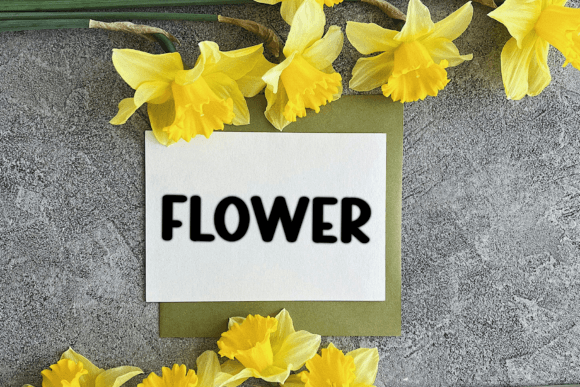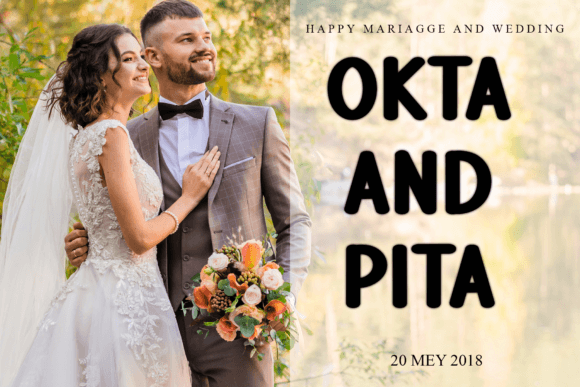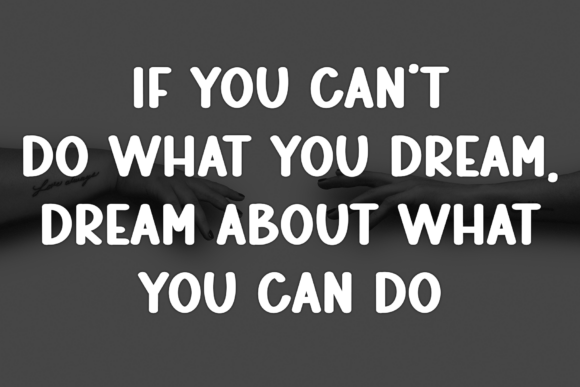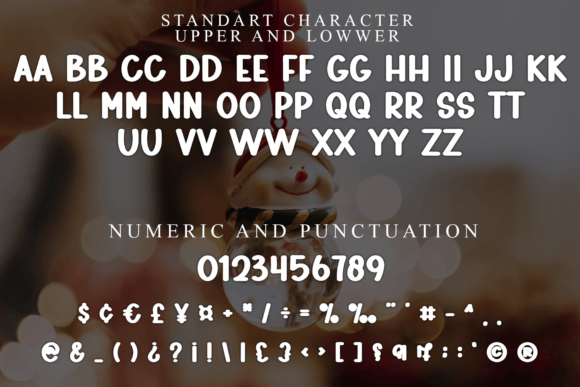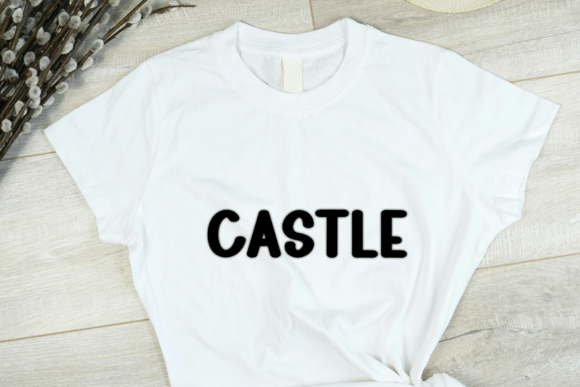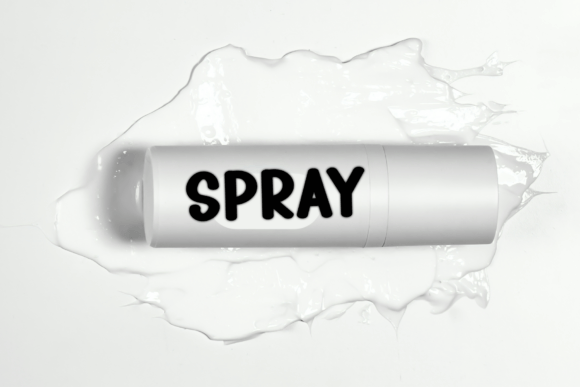
Introducing the Bold Series Font: Elevate Your Designs with Timeless Elegance
In the world of typography, a font can make or break a design. It’s the foundation upon which creativity is built, and the right choice can elevate a project from ordinary to extraordinary. For designers and crafters seeking a stylish, beautiful, and elegant font that embodies a contemporary atmosphere with impeccable form, the Bold Series Font is an exceptional choice. Inspired by timeless classic calligraphy, this font brings balance, variety, and a touch of sophistication to any project.
The Inspiration Behind Bold Series
The Bold Series Font draws its inspiration from the elegance of classic calligraphy, a style that has stood the test of time. Calligraphy, with its fluid lines and dynamic connections, has always been a symbol of sophistication and luxury. By incorporating these elements into a modern font, Bold Series achieves a perfect blend of traditional beauty and contemporary flair. This fusion makes it versatile enough to be used in a wide range of design projects, from branding and advertising to packaging and digital media.
Key Features of Bold Series Font
• Contemporary Atmosphere and Impeccable Form: The Bold Series Font is crafted to provide a clean and modern look that fits well with current design trends while maintaining a classic touch.
• Balanced and Varied: The font is designed with balance and variety in mind, offering multiple weights and styles that can be used to create visual hierarchy and add depth to designs.
• PUA Encoded: Being PUA (Private Use Area) encoded means that the Bold Series Font offers easy access to a wide range of glyphs and ligatures. This feature allows designers to explore creative typography without the complexity of character mapping.
• Elegant and Stylish: With its roots in classic calligraphy, this font exudes elegance and style, making it suitable for projects that require a touch of sophistication.
Applications of Bold Series Font
The versatility of the Bold Series Font makes it an excellent choice for various design applications. Here are a few ways designers and crafters can utilize this beautiful font:
• Branding and Logo Design: Create memorable and impactful brand identities with the elegant and modern appeal of Bold Series.
• Advertising and Marketing Materials: Use the font in brochures, flyers, and digital ads to add a touch of sophistication and draw attention to your message.
• Packaging Design: Elevate product packaging with a stylish and contemporary look that stands out on shelves.
• Digital Media: Apply the Bold Series Font in website design, social media graphics, and video content to create a cohesive and professional visual identity.
Why Choose Bold Series Font?
Choosing the right font for a project can be overwhelming, given the numerous options available. However, the Bold Series Font stands out for several reasons:
• Unique Aesthetic: It offers a unique blend of classic calligraphy and modern design, making it a distinctive choice for designers.
• Versatility: The font’s versatility means it can be used across various projects and industries, making it a valuable addition to any designer’s toolkit.
• Easy to Use: With PUA encoding, accessing the font’s extensive features is straightforward, saving designers time and effort.
The Bold Series Font is a stylish, beautiful, and elegant addition to any design project. Its inspiration from timeless classic calligraphy, combined with a contemporary atmosphere and impeccable form, makes it a versatile and sophisticated choice. Whether you’re a designer looking to elevate your branding, advertising, or digital media, or a crafter seeking a unique font for your creative projects, the Bold Series Font is sure to meet your needs. With its balanced and varied design, PUA encoding for easy access to glyphs and ligatures, and a wide range of applications, this font is poised to become a go-to choice for those seeking to add a touch of elegance and style to their work.